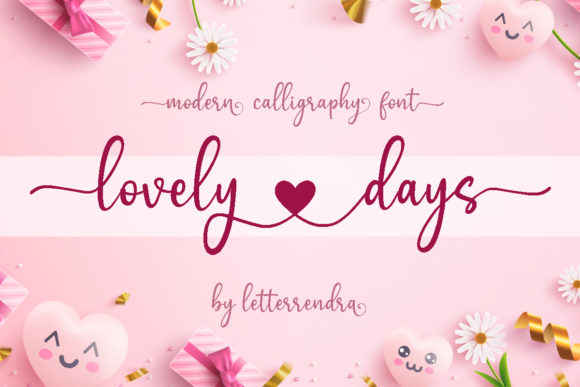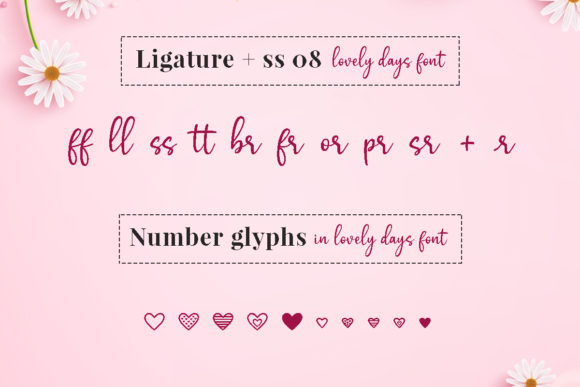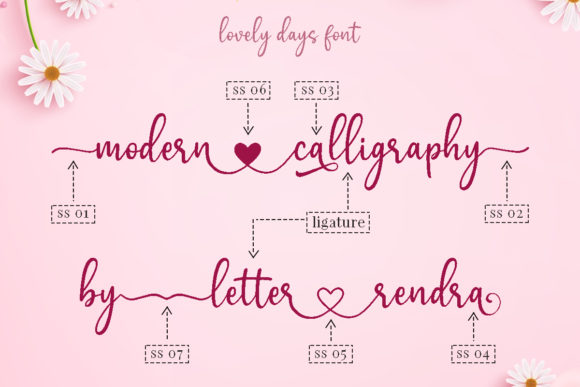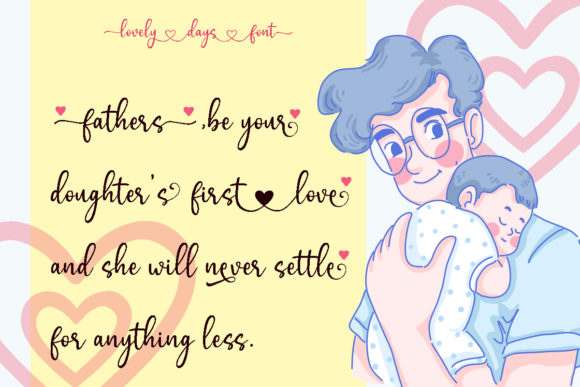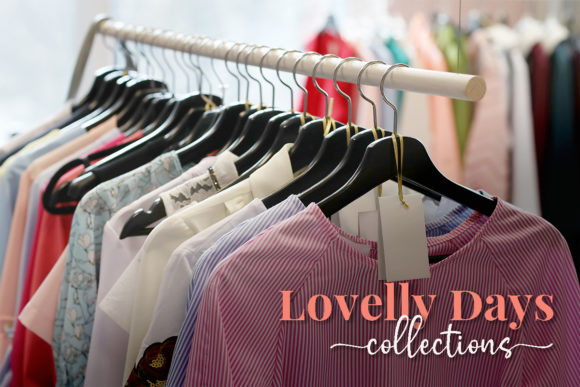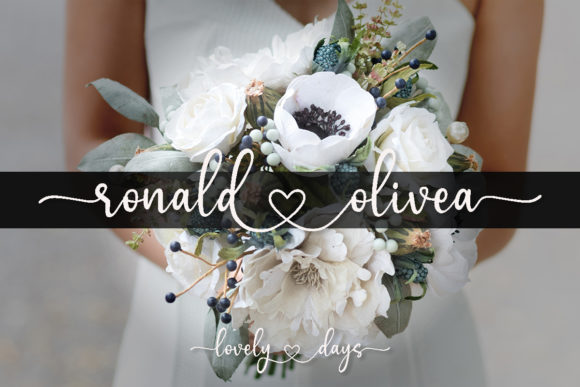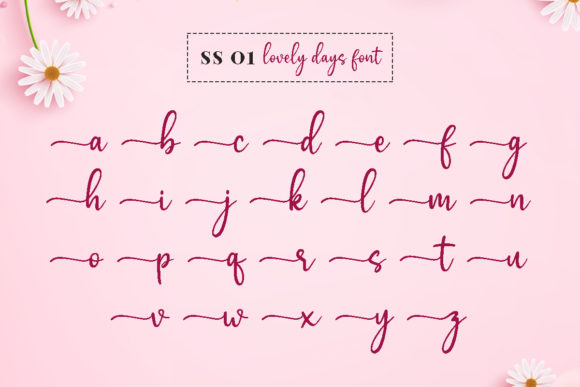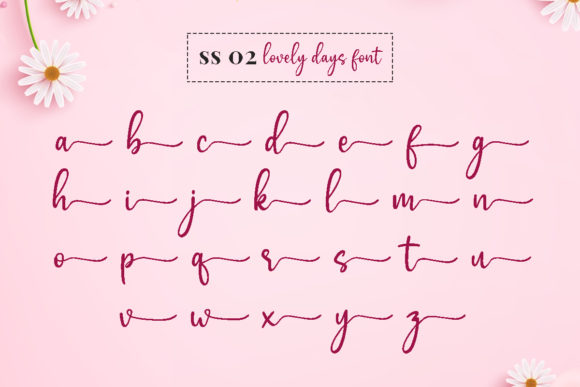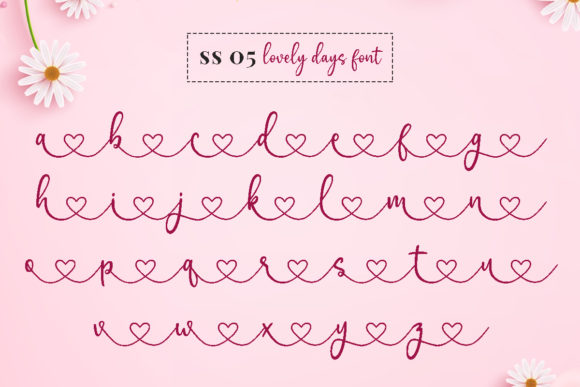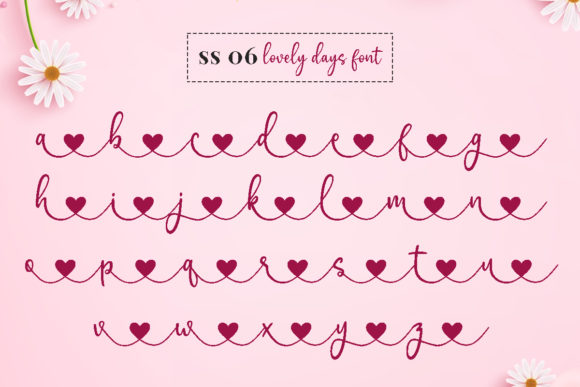
Lovely Days Font
About Lovely Days Font
Lovely Days is a romantic handwritten font, featuring amazing heart swashes. This font is PUA encoded which means you can access all of the glyphs and swashes with ease! It features a varying baseline, smooth lines, gorgeous glyphs and stunning alternates. Fall in love with its incredibly versatile style and use it to create spectacular designs!